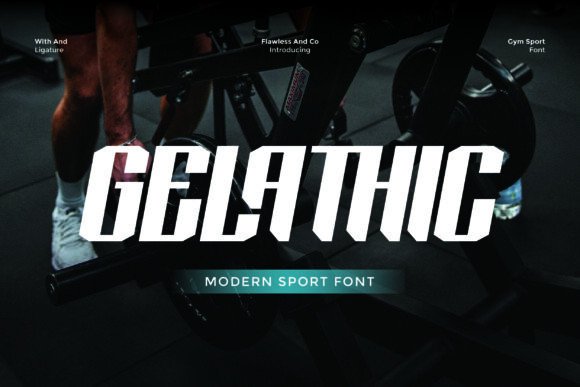
Gelathic Font: The Ultimate Choice for Bold and Strong Sport Branding
In the world of sports branding, a font can make all the difference in conveying a sense of power, precision, and energy. Introducing Gelathic, a modern sport font designed to dominate with its bold, strong, and sharp-edged aesthetic. This font is the perfect choice for projects that push limits, such as gym branding, energy drink labels, activewear logos, and fitness campaigns.
The Design and Aesthetic of Gelathic Font
Gelathic font channels power and precision through its striking angular forms and aggressive attitude. The bold and strong design of Gelathic makes it stand out from other fonts, giving it a unique and edgy look. The sharp edges and clean lines of Gelathic create a sense of dynamism and movement, making it perfect for sports-related branding.
The font’s design is inspired by the world of sports, where strength, power, and precision are essential. Gelathic’s aesthetic is characterized by its bold and condensed letterforms, which give it a strong and confident look. The font’s angular forms and sharp edges create a sense of aggression and energy, making it perfect for brands that want to convey a sense of intensity and competition.
The Features of Gelathic Font
Gelathic font comes with a range of features that make it an ideal choice for sports branding. Some of its key features include:
- Ligatures: Gelathic font includes ligatures, which allow for a more fluid and natural reading experience. Ligatures are special characters that combine two or more letters into a single glyph, creating a more cohesive and harmonious look.
- Clean Alignment: Gelathic font has clean and precise alignment, which makes it easy to use and versatile. The font’s clean alignment ensures that it looks great in any context, from large headlines to small body text.
The Benefits of Using Gelathic Font
Gelathic font offers a range of benefits for sports branding and marketing. Some of the key benefits of using Gelathic font include:
- Unstoppable Visual Energy: Gelathic font delivers unstoppable visual energy, making it perfect for brands that want to convey a sense of power and intensity.
- Fresh Take on Athletic Typography: Gelathic font offers a fresh take on athletic typography, providing a unique and modern look that sets it apart from other fonts.
- Versatility: Gelathic font is versatile and can be used in a range of contexts, from large headlines to small body text.
How to Use Gelathic Font
Gelathic font is easy to use and can be applied to a range of design projects. Here are some tips on how to use Gelathic font:
- Gym Branding: Use Gelathic font to create bold and eye-catching gym branding, including logos, signage, and marketing materials.
- Energy Drink Labels: Use Gelathic font to create dynamic and attention-grabbing energy drink labels that convey a sense of energy and intensity.
- Activewear Logos: Use Gelathic font to create strong and confident activewear logos that convey a sense of power and precision.
- Fitness Campaigns: Use Gelathic font to create bold and motivational fitness campaigns that inspire and motivate.
In conclusion, Gelathic font is a modern sport font designed to dominate with its bold, strong, and sharp-edged aesthetic. With its ligatures, clean alignment, and PUA encoding, Gelathic font offers a fresh take on athletic typography, delivering unstoppable visual energy. Whether you’re creating gym branding, energy drink labels, activewear logos, or fitness campaigns, Gelathic font is the perfect choice for projects that push limits.
- What is Gelathic font? Gelathic font is a modern sport font designed to dominate with its bold, strong, and sharp-edged aesthetic.
- What are the key features of Gelathic font? Gelathic font includes ligatures, clean alignment, and PUA encoding, making it easy to use and versatile.
- What are the benefits of using Gelathic font? Gelathic font delivers unstoppable visual energy, provides a fresh take on athletic typography, and is versatile and easy to use.
- How can I use Gelathic font? Gelathic font can be used for gym branding, energy drink labels, activewear logos, fitness campaigns, and more.